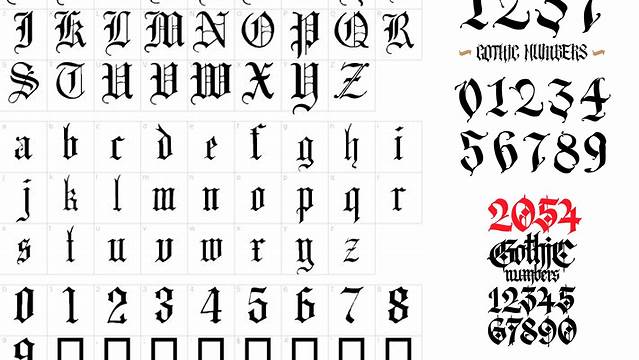
Gothic Number Fonts: Copy & Paste Guide
Hey guys! Ever wanted to add a touch of mystery or old-world charm to your texts? Gothic number fonts are the way to go! They're super cool and can make your social media posts, invitations, or even just your notes stand out. But sometimes, finding the right font and figuring out how to use it can be a bit of a hassle. That's why we're here to break it down for you. This guide will cover everything you need to know about gothic number fonts, from where to find them to how to copy and paste them into your favorite apps. So, let's dive in and unlock the secrets of these awesome fonts! Whether you're crafting a spooky Halloween invitation, designing a vintage-themed poster, or just want your Instagram bio to have a unique flair, understanding how to use gothic number fonts can seriously level up your creative game. Weβll explore the history behind these fonts, different styles you can find, and the easiest ways to incorporate them into your digital life. Get ready to transform your text into something truly special! Remember, the key is to experiment and find what works best for your style and needs. Don't be afraid to mix and match different fonts and styles to create a look that's uniquely you. And most importantly, have fun with it!
What are Gothic Number Fonts?
So, what exactly are gothic number fonts? Well, imagine those dramatic, ornate letters you often see in old books or medieval manuscripts. That's the vibe we're going for! Gothic fonts, also known as blackletter or Old English fonts, are characterized by their bold, intricate strokes and often feature sharp angles and elaborate flourishes. These fonts have a rich history, dating back to the Middle Ages, and they've been used in everything from religious texts to royal decrees. When applied to numbers, they bring a sense of history and sophistication to your text. Think about how cool it would be to use these fonts for a historical timeline or even just to add a bit of flair to your everyday writing! The distinct style of gothic number fonts makes them perfect for adding a touch of elegance or drama to any project. Whether youβre designing a poster, creating invitations, or just want to make your social media posts stand out, these fonts can help you achieve a unique and eye-catching look. Plus, understanding the history and characteristics of gothic fonts can give you a deeper appreciation for the art of typography. So, let's explore the world of gothic number fonts and discover how you can use them to enhance your creative projects.
History and Origins of Gothic Fonts
The history of gothic fonts is super fascinating, guys! These fonts have roots that stretch way back to the Middle Ages, specifically around the 12th century. They evolved from Carolingian minuscule, which was a more rounded and legible script. As writing styles developed, scribes started experimenting with bolder and more decorative forms, and that's how gothic fonts began to take shape. These fonts were widely used throughout Europe for centuries, particularly in religious texts, legal documents, and even everyday writing. The invention of the printing press in the 15th century further cemented their popularity, as they became the go-to choice for many early printed books. Think about the Gutenberg Bible β that's a prime example of gothic font in action! Over time, different styles of gothic fonts emerged, each with its own unique characteristics. Some were more elaborate and ornamental, while others were simpler and more legible. But one thing they all had in common was their bold, dramatic appearance. Understanding this historical context can really enhance your appreciation for these fonts and how they can be used today. So, the next time you see a gothic font, remember its rich history and the skilled scribes who first brought it to life!
Characteristics of Gothic Number Fonts
Okay, so what makes gothic number fonts so unique? Well, it's all in the details! These fonts are known for their thick, bold strokes that create a strong visual impact. They often feature sharp angles and pointed serifs, which give them a distinct medieval feel. Think about the way the lines intersect and how the curves are formed β it's all very deliberate and adds to the overall dramatic effect. Another key characteristic is the intricate detailing and flourishes that you often see in gothic fonts. These can range from simple decorative elements to elaborate swirls and embellishments. This level of detail is what makes gothic fonts so visually striking and sets them apart from more modern typefaces. When it comes to numbers specifically, gothic fonts can add a touch of elegance and sophistication to your text. They're perfect for situations where you want to convey a sense of history, tradition, or formality. Whether you're designing a certificate, creating a logo, or just want to make your date look extra special, gothic number fonts can help you achieve the desired effect. Understanding these characteristics will help you appreciate the artistry behind gothic fonts and how they can be used to enhance your creative projects. The unique features, such as the sharp angles and bold strokes, are what make these fonts so distinctive and memorable.
Why Use Gothic Number Fonts?
Why should you even bother with gothic number fonts, you ask? Well, there are tons of reasons! First off, they're super eye-catching. If you want your text to stand out from the crowd, a gothic font is a fantastic way to do it. They have a bold and dramatic look that instantly grabs attention. Imagine using these fonts for a poster, an invitation, or even just your social media captions β they're sure to make an impact! Another great reason to use gothic number fonts is the sense of history and tradition they bring. These fonts have a long and rich past, and using them can add a touch of elegance and sophistication to your work. They're perfect for projects that need a vintage or historical feel, like wedding invitations, certificates, or even book covers. Plus, gothic fonts can be really versatile. While they're often associated with darkness and mystery, they can also be used in more lighthearted and creative ways. Think about using them for a band logo, a gaming website, or even a fun personal project. The possibilities are endless! So, whether you're looking to make a statement, add a touch of class, or simply try something new, gothic number fonts are definitely worth exploring. They offer a unique and powerful way to express yourself through typography. And let's be honest, who doesn't love a font that makes their work look extra awesome?
Adding a Unique and Dramatic Flair
One of the biggest reasons to use gothic number fonts is the unique and dramatic flair they bring to any project. These fonts have a certain boldness and presence that's hard to ignore. They're perfect for making a statement and creating a strong visual impact. Think about how these fonts can transform a simple headline into something truly captivating, or how they can add a touch of drama to a poster or invitation. The key is to use them strategically and in a way that complements your overall design. A well-placed gothic font can instantly elevate your work and make it stand out from the crowd. They're especially effective in situations where you want to convey a sense of importance, formality, or even mystery. Imagine using them for a movie title, a book cover, or a special announcement β they're sure to grab attention and leave a lasting impression. But it's not just about drama; gothic number fonts can also add a touch of elegance and sophistication. Their intricate details and bold strokes create a sense of craftsmanship and quality that can enhance any design. So, whether you're looking to make a bold statement or add a touch of class, gothic number fonts are a fantastic choice. They offer a unique way to express yourself and make your work truly memorable.
Conveying a Sense of History and Tradition
Another fantastic reason to use gothic number fonts is their ability to convey a sense of history and tradition. These fonts have deep roots in the past, dating back to the Middle Ages, and they carry with them a rich heritage. When you use gothic fonts, you're tapping into that history and adding a touch of old-world charm to your work. Think about how these fonts were used in ancient manuscripts, royal decrees, and early printed books β they have a certain gravitas and authority that's hard to replicate with more modern typefaces. This makes them perfect for projects that need a historical or vintage feel. Imagine using them for wedding invitations, certificates, or even logos for businesses with a long-standing tradition. They can instantly evoke a sense of timelessness and quality. But it's not just about formality; gothic number fonts can also add a touch of whimsy and nostalgia. They can be used to create a fairytale-like atmosphere or to evoke memories of a bygone era. Whether you're designing a historical novel cover or creating a themed event poster, gothic fonts can help you capture the desired mood. So, if you're looking to add a touch of history and tradition to your work, these fonts are an excellent choice. They bring with them a legacy of craftsmanship and artistry that can enhance any project.
Versatility in Design Projects
Okay, let's talk versatility! You might think gothic number fonts are only good for certain types of projects, but that's totally not true. These fonts are surprisingly versatile and can be used in a wide range of design contexts. Sure, they're perfect for adding a touch of drama and history, but they can also be used in more modern and creative ways. Think about using them for band logos, gaming websites, or even fashion editorials. The key is to experiment and find the right balance. A gothic font can add a unique edge to a contemporary design, making it stand out from the crowd. They can also be used to create a sense of contrast and visual interest. Imagine pairing a gothic font with a clean, modern typeface β the juxtaposition can be really striking. But it's not just about aesthetics; gothic number fonts can also be used to convey different emotions and messages. They can be elegant, mysterious, playful, or even edgy, depending on how they're used. This versatility makes them a valuable tool in any designer's toolkit. Whether you're working on a historical project or a cutting-edge campaign, gothic fonts can help you achieve the desired look and feel. So, don't be afraid to think outside the box and explore the many possibilities these fonts offer. They might just surprise you with their adaptability and charm.
Where to Find Gothic Number Fonts
So, you're convinced that gothic number fonts are awesome, but where do you actually find them? Don't worry, guys, we've got you covered! There are tons of resources out there, both free and paid, that offer a wide variety of gothic fonts. One of the easiest places to start is online font libraries like Google Fonts, DaFont, and Font Squirrel. These sites have huge collections of fonts, including plenty of gothic options, and many of them are free to download and use. Just be sure to check the licensing terms before using a font in a commercial project. Another great option is to explore creative marketplaces like Creative Market and Envato Elements. These sites offer premium fonts that are designed by professional typographers and often come with additional features and support. While these fonts usually cost money, they can be a worthwhile investment if you're looking for something truly unique and high-quality. You can also find gothic number fonts in design software like Adobe Photoshop and Illustrator. These programs often include a selection of pre-installed fonts, and you can also install additional fonts that you've downloaded from other sources. So, whether you're on a budget or willing to splurge on a premium font, there are plenty of options available. The key is to explore different resources and find the fonts that best suit your style and needs. Happy font hunting!
Free Online Font Libraries
Let's dive into the world of free online font libraries, because who doesn't love free stuff, right? These libraries are goldmines for gothic number fonts, offering a huge variety of options without costing you a dime. Sites like Google Fonts, DaFont, and Font Squirrel are fantastic places to start your search. Google Fonts is especially great because it integrates seamlessly with many web design platforms and offers a wide range of high-quality fonts that are free for both personal and commercial use. DaFont is another popular choice, with a massive collection of fonts uploaded by designers from all over the world. You can find everything from classic gothic styles to more modern interpretations, and the site even has a handy preview tool so you can see how the font will look in your text. Font Squirrel is another excellent resource, known for its carefully curated selection of free fonts that are licensed for commercial use. This means you can use the fonts in your projects without worrying about copyright issues. When browsing these libraries, be sure to use the search filters to narrow down your options. You can often filter by style, weight, and other characteristics to find exactly what you're looking for. And remember to always check the licensing terms before using a font in a project, just to be on the safe side. With so many free options available, there's no excuse not to explore the world of gothic number fonts and find the perfect one for your needs. The variety and accessibility make these libraries an invaluable resource for designers and creatives of all levels.
Character Map/Symbol Table Method
Alright, let's dive into another method for getting those awesome gothic number fonts: using the Character Map or Symbol Table! This is a built-in tool on most operating systems that lets you browse through all the characters in a font, including those cool gothic numbers. It might sound a bit techy, but trust me, it's pretty straightforward once you get the hang of it. On Windows, you can find the Character Map by searching for it in the Start Menu. On macOS, it's called the Character Viewer and you can access it from the Edit menu in many applications or by searching for it in Spotlight. Once you open the Character Map or Symbol Table, you'll see a grid of characters. You can select different fonts from a dropdown menu to see the characters available in each font. To find gothic number fonts, you'll want to look for fonts that have a blackletter or Old English style. Some common gothic fonts that are included with operating systems include Fraktur and Textura. Once you've found a gothic font, you can browse through the characters until you find the numbers you need. Click on the character to select it, and then click the